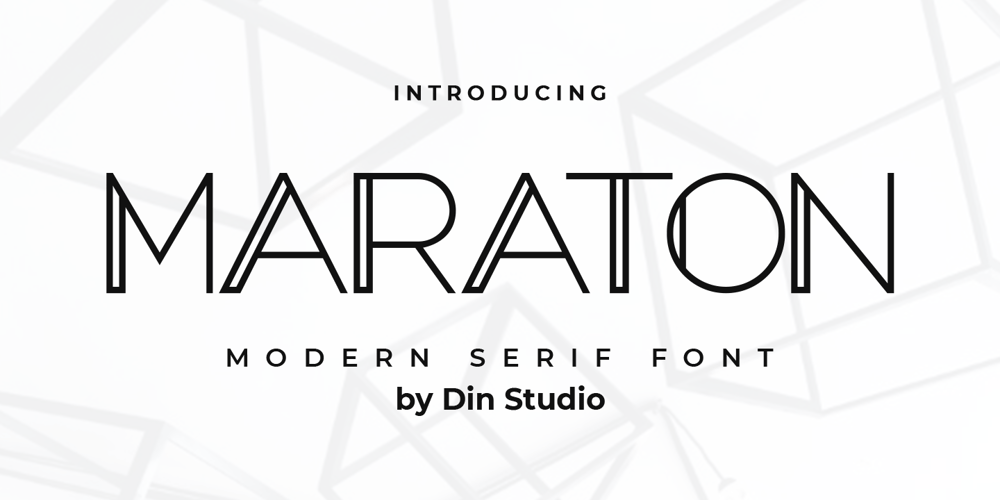
Maraton Font Family was designed by Donis Miftahudin and published by Din Studio. Maraton contains 1 styles and family package options. Maraton is a modern display font. Made for any professional project branding. It is the best for logos, branding and quotes. Every letter has a unique and beautiful touch.Features: PUA Encoded Multilingual Support Numerals and Punctuation Thank you for downloading premium fonts from Din Studio